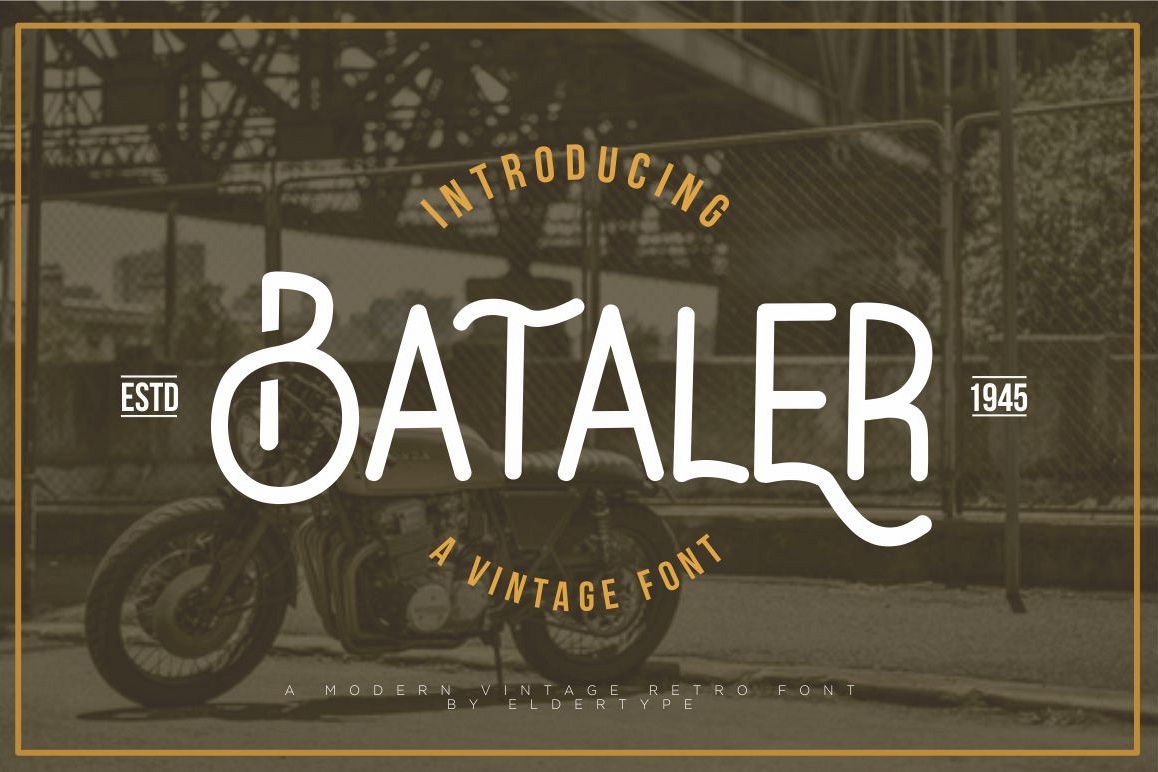
Bataler - Vintage Font
Bataler is a vintage font with elegent style, perfect for adding some romance and charm to your designs. This script functions most strongly as a display or headline font. suitable for logo, logotype, branding,wedding, fashion, label, book cover, t-shirt, instagram post, and other